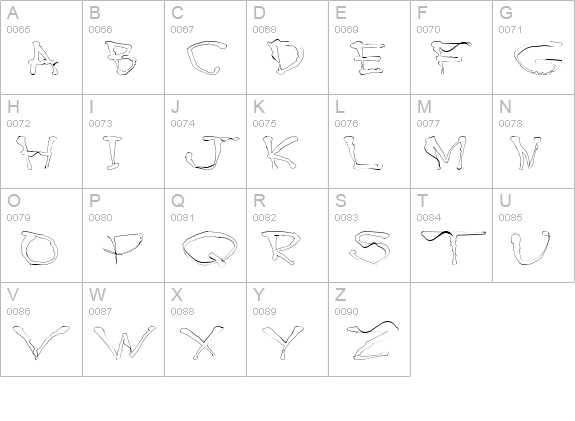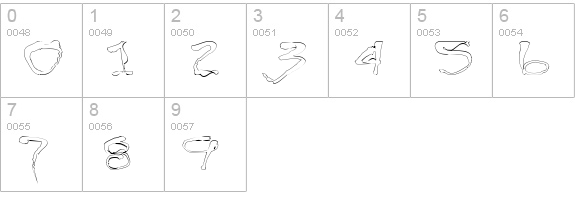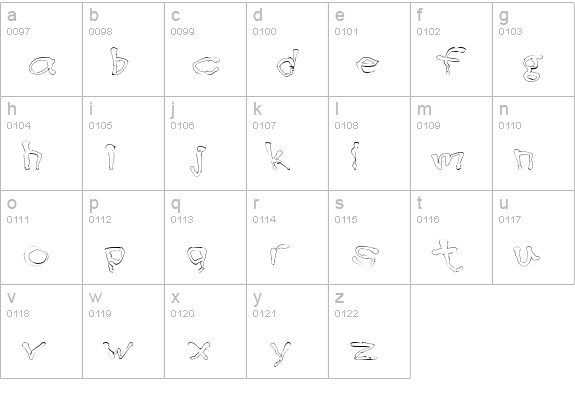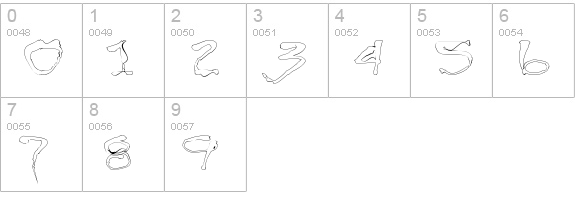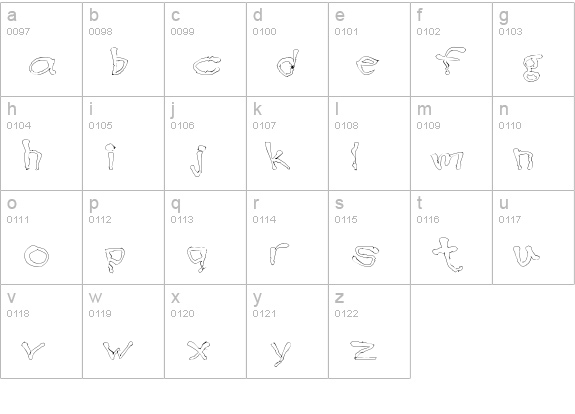
BlottoooLightBeer Font Details
BlottoooLightBeer font exudes a playful and casual vibe, perfect for adding a touch of lightheartedness to your design projects. With its rounded edges and smooth lines, this font is both fun and easy on the eyes. Whether you're working on a poster, logo, or social media graphic, BlottoooLightBeer font will bring a refreshing and bubbly feel to your text. What's even better is that BlottoooLightBeer font is completely free to download at FontsMarket.com. This means you can enjoy its quirky charm without any cost, making it a valuable addition to your font collection. Don't miss out on the opportunity to enhance your designs with this delightful and whimsical font. Download BlottoooLightBeer today and let your creativity shine!